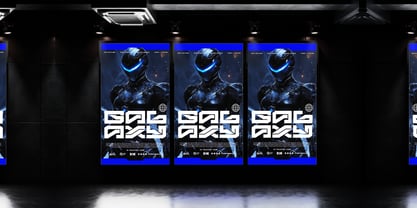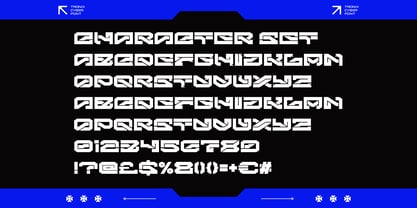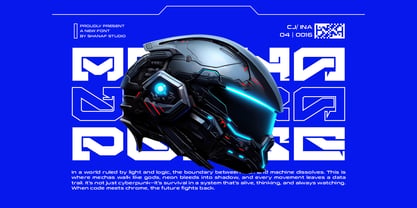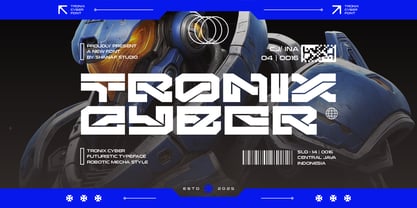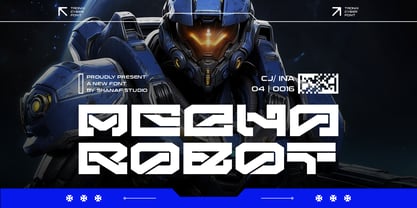
Tronix
by Shanaf
The Tronix Font Family was designed by Yesie Erma Yunita and published by Shanaf. Tronix contains 1 styles. More about this family
Tronix Futuristic Cyberpunk Mecha Font is a bold display typeface inspired by the sharp lines of robotics, mecha suits, and futuristic sci-fi aesthetics. Each character is built with angular strokes and geometric edges, making the font feel mechanical and industrial while keeping a clean, modern design. The heavy weight and unique cutouts emphasize strength and structure, perfect for projects that need a commanding presence. The design reflects cybernetic systems and mecha armor plating, creating a perfect balance of technology and creativity. With its striking robotic appeal, Tronix is designed to capture attention and communicate innovation.
This font is ideal for futuristic posters, gaming titles, sci-fi movie covers, technology branding, cyberpunk logos, and modern packaging. It adapts seamlessly to both digital and print use, delivering a strong futuristic vibe in every layout. Tronix is not just a font but a design tool to bring cyber worlds, mecha-inspired designs, and techno visuals to life. Use it for posters, album art, magazines, or any project where bold futuristic style is essential.